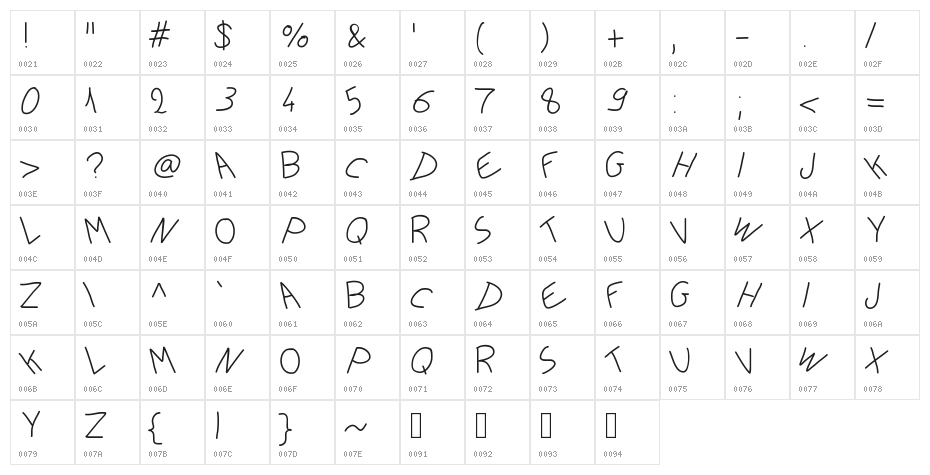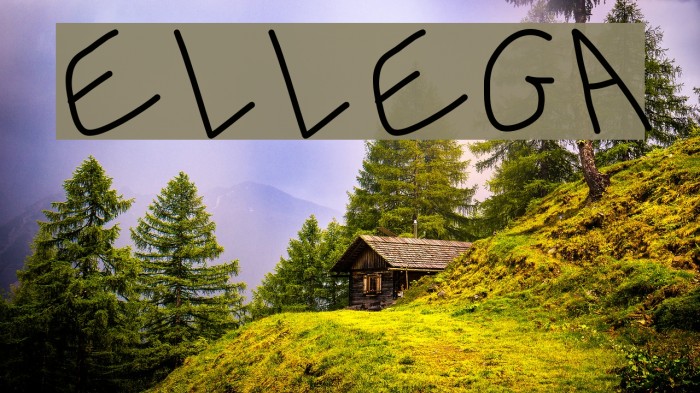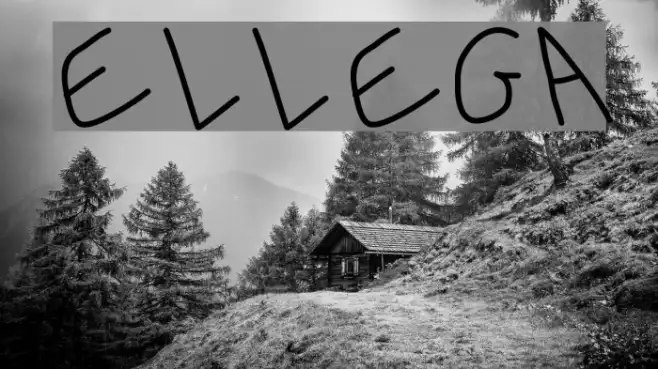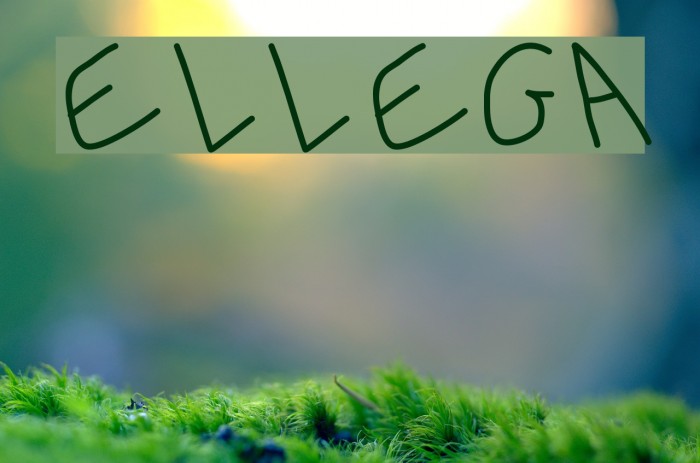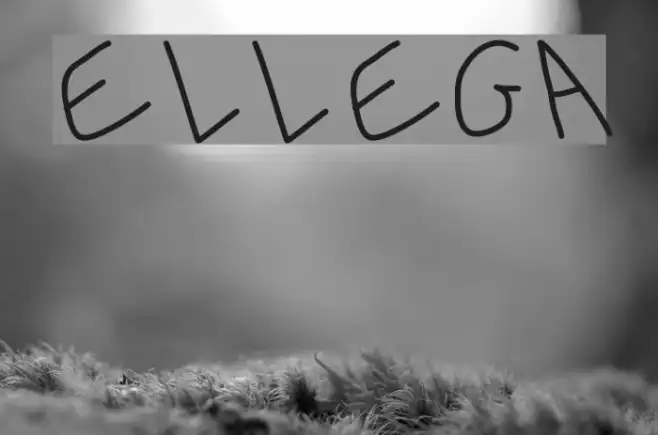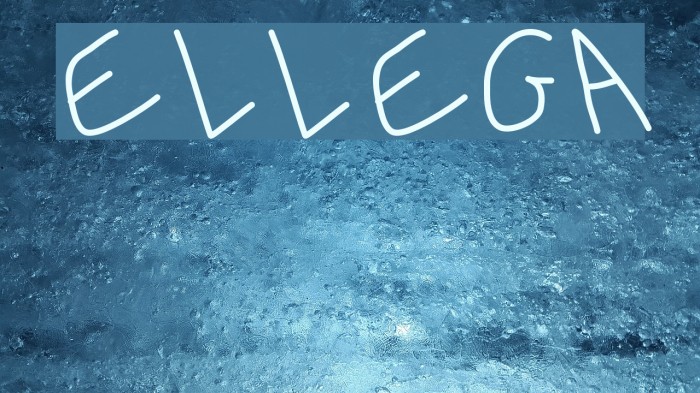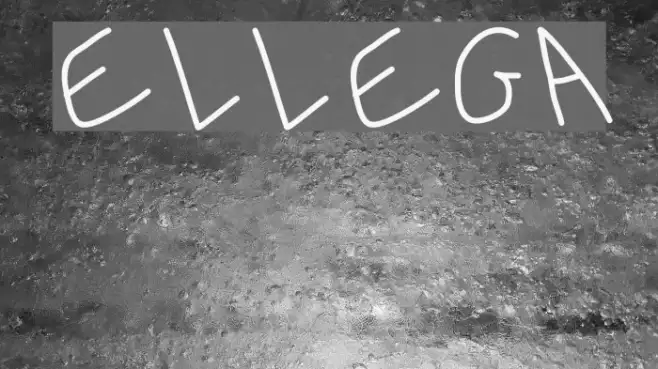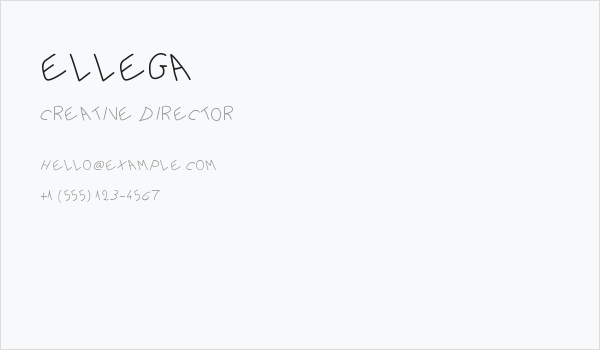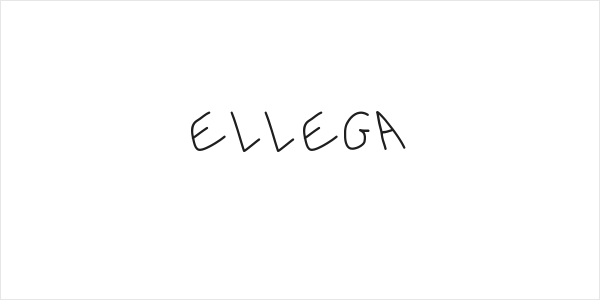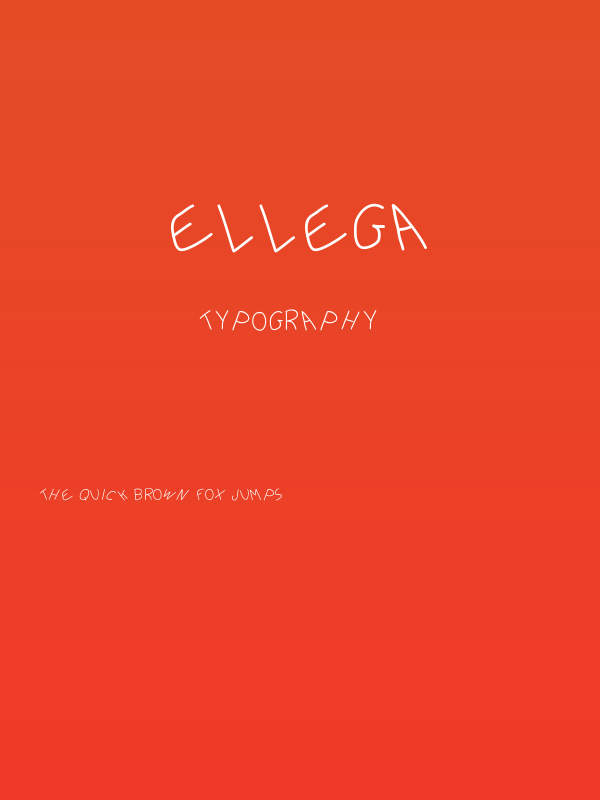
Ellega Font
Ellega Description
This font features a playful and casual handwritten style, characterized by its irregular and slightly tilted letterforms. The strokes are smooth and consistent, giving it a friendly and approachable appearance. The uppercase and lowercase letters maintain a uniform height, enhancing readability while preserving the informal aesthetic. The numerals and special characters are crafted with the same whimsical touch, making them blend seamlessly with the alphabet. This font's unique charm lies in its ability to convey a sense of spontaneity and creativity, making it ideal for projects that require a personal and informal touch.
| Proposed Projects | Ideal for greeting cards, children's books, casual invitations, and creative branding. |